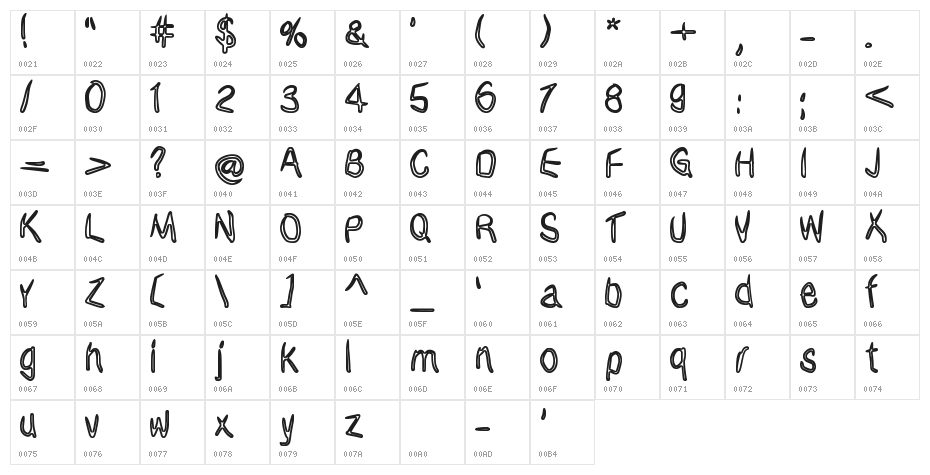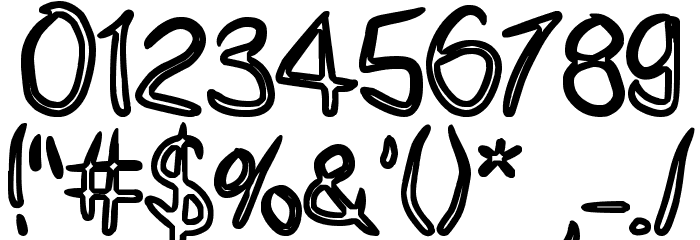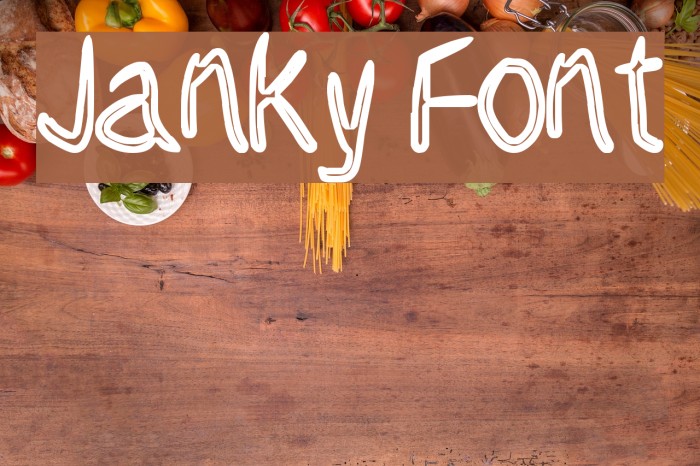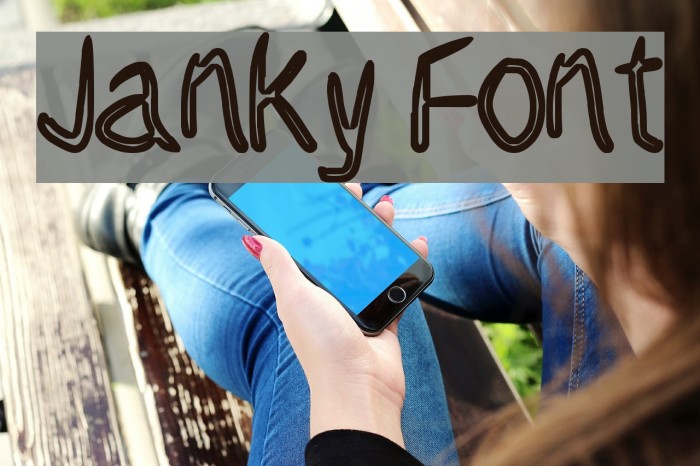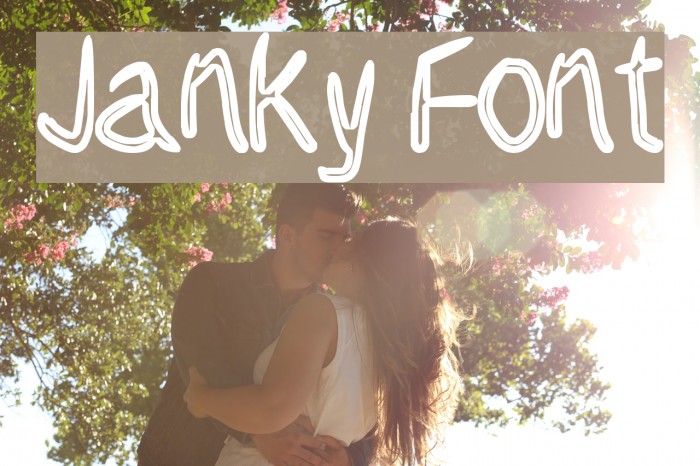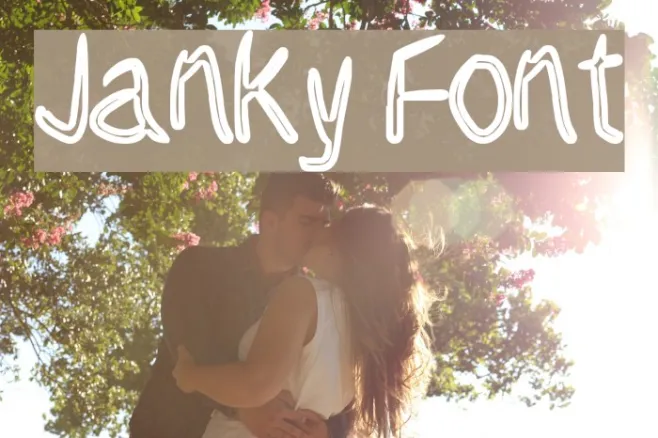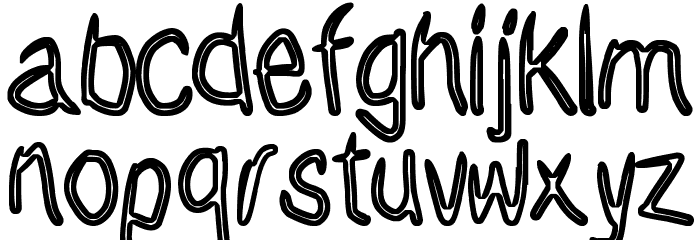
Janky Font
Janky Description
This playful and quirky font features a hand-drawn style with irregular strokes and a casual appearance. The letters are bold and slightly uneven, giving them a dynamic and energetic feel. The uppercase and lowercase characters maintain a consistent style, with rounded edges and a sense of movement. The numbers and special characters follow the same whimsical design, making the font suitable for creative and informal projects. Its unique charm and personality make it stand out, ideal for designs that require a touch of fun and creativity.
| Proposed Projects | Perfect for children's books, comic strips, playful branding, and creative posters. |